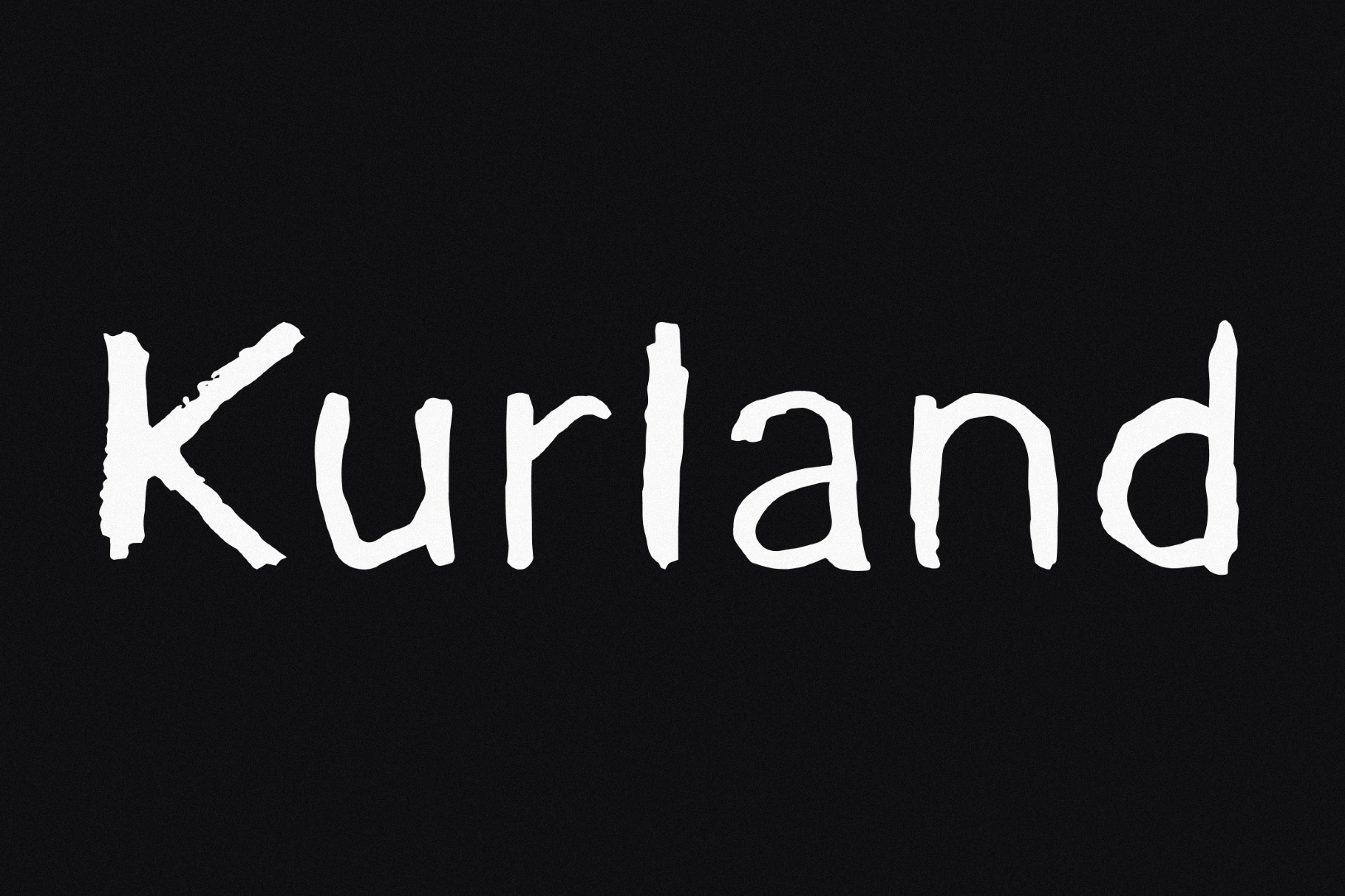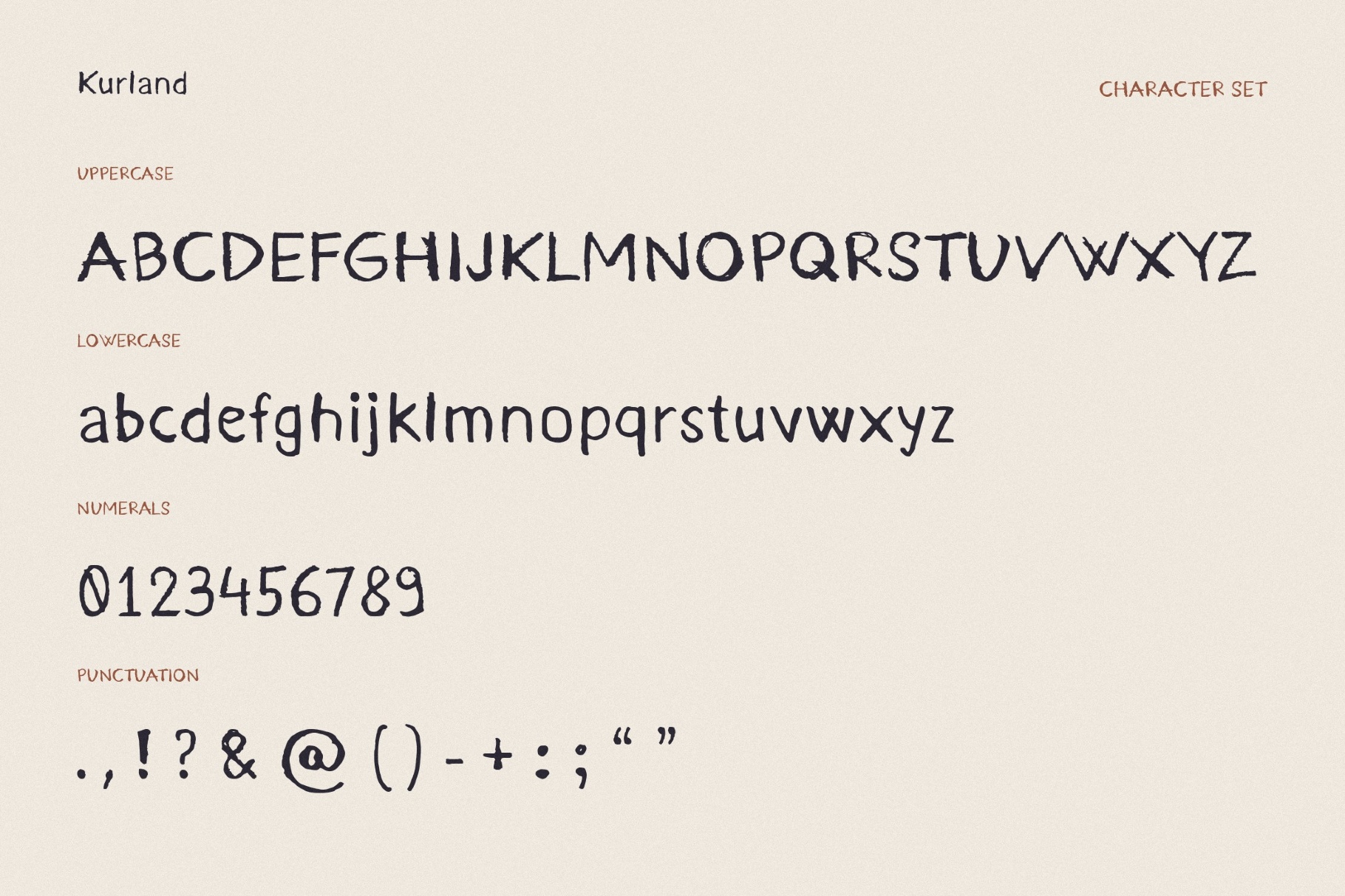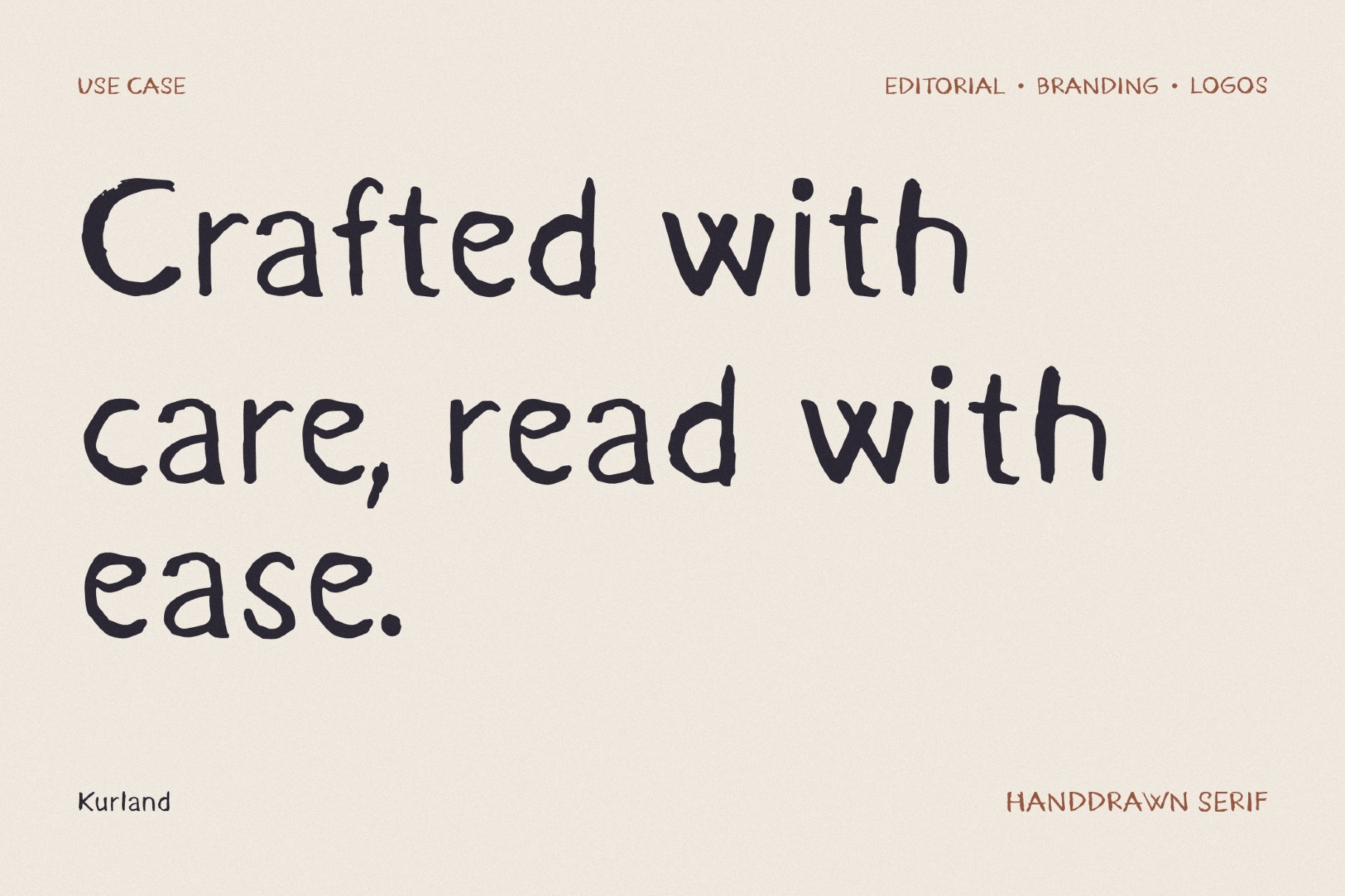
Kurland - Rough Brush Font
Kurland
Kurland looks like a grunge handwritten font that recalls the spirit of school notebooks, folk symbols, ancient scripts, and encyclopedic charts. Its simple drawn lines and slightly naïve shapes give the type a warm, curious personality, while the wide character support makes it practical for multilingual layouts and educational design.
The font suits educational posters, language-learning materials, indie games, children’s books, cultural projects, museum graphics, and packaging.
- uppercase and lowercase letters;
- numbers, punctuation, dingbats, and symbols;
- multilingual support across extended Latin, Cyrillic, Hebrew, Armenian, Arabic, and Greek scripts;
- ligatures.